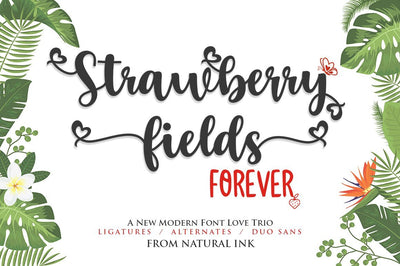
Strawberry Field Forever Trio Font
Strawberry Fields Forever Script Font TRIO is a new modern script font with an irregular base line. Trendy and feminine style. Strawberry Fields Forever Script looks beautiful in wedding invitations, thank-you cards, quotes, greeting cards, logos, business cards, and more. Perfect for use in ink or watercolors. Including initial letters and terminals, alternatives and support for many languages.